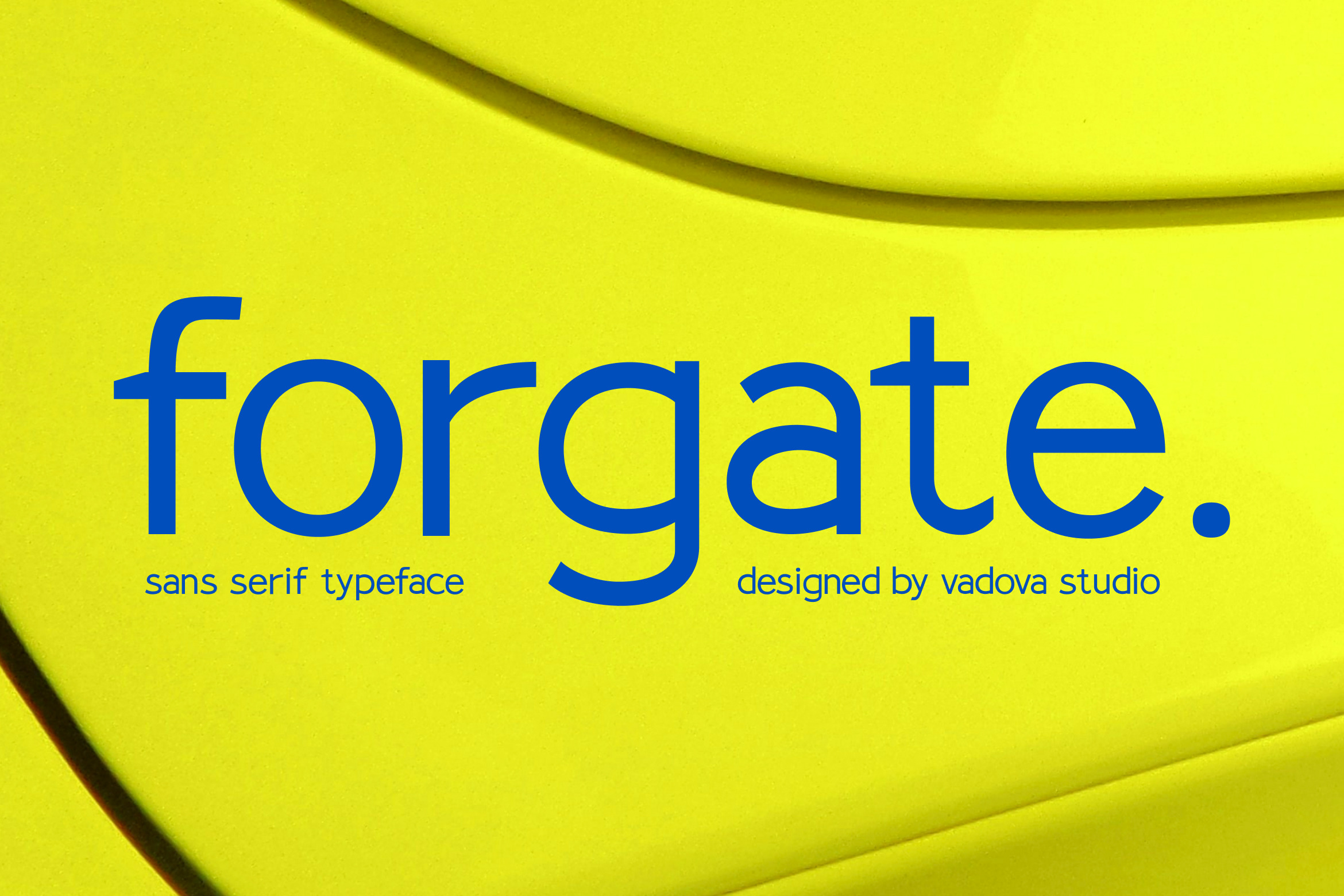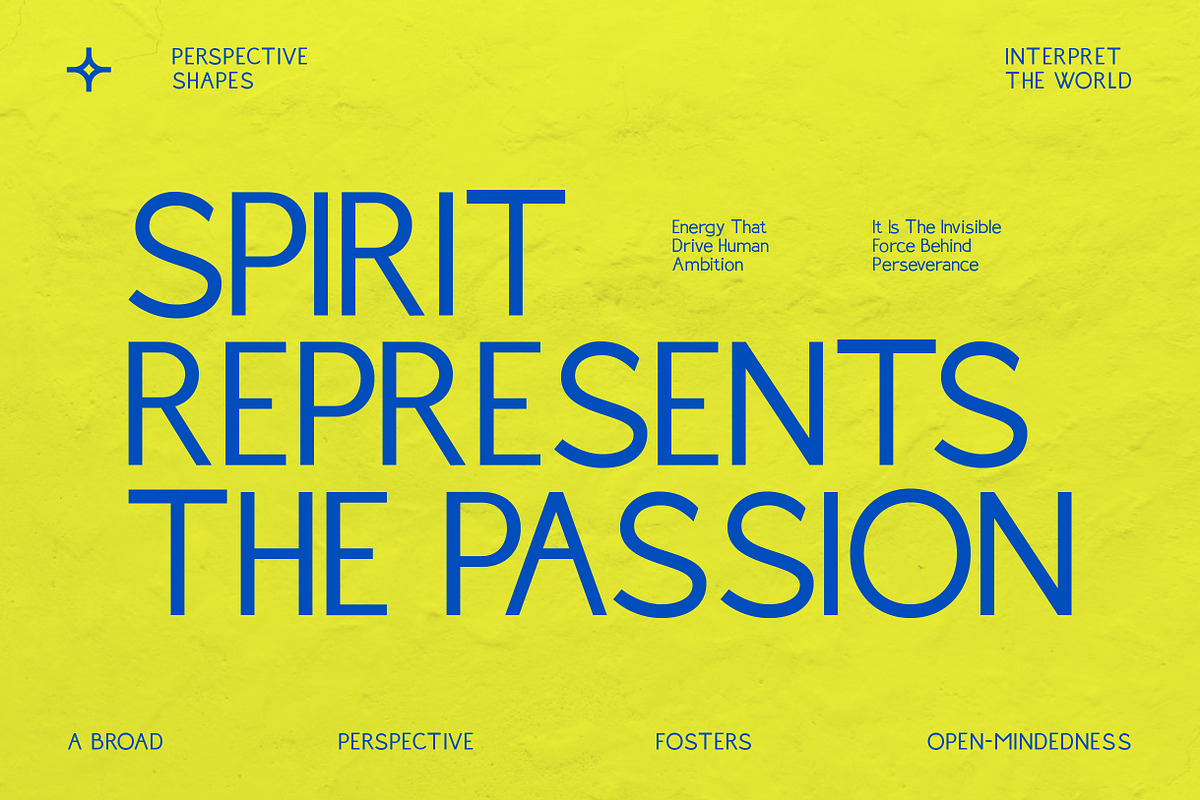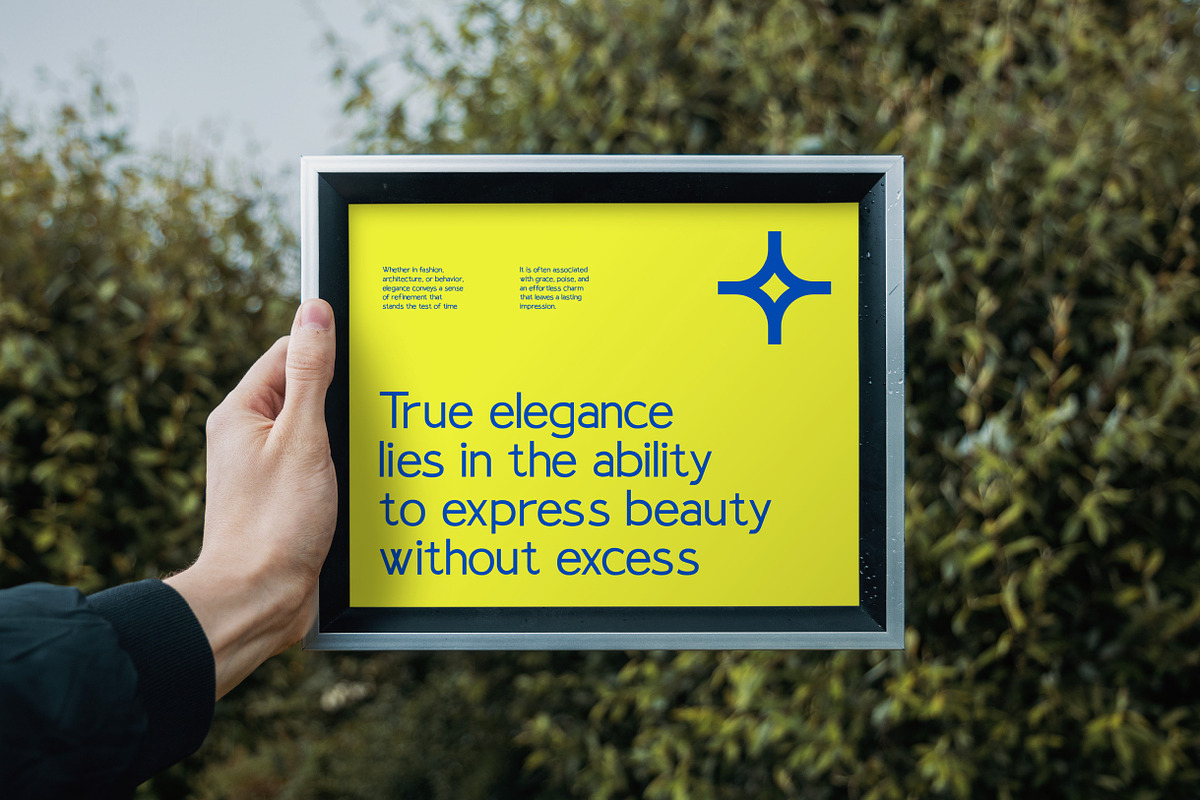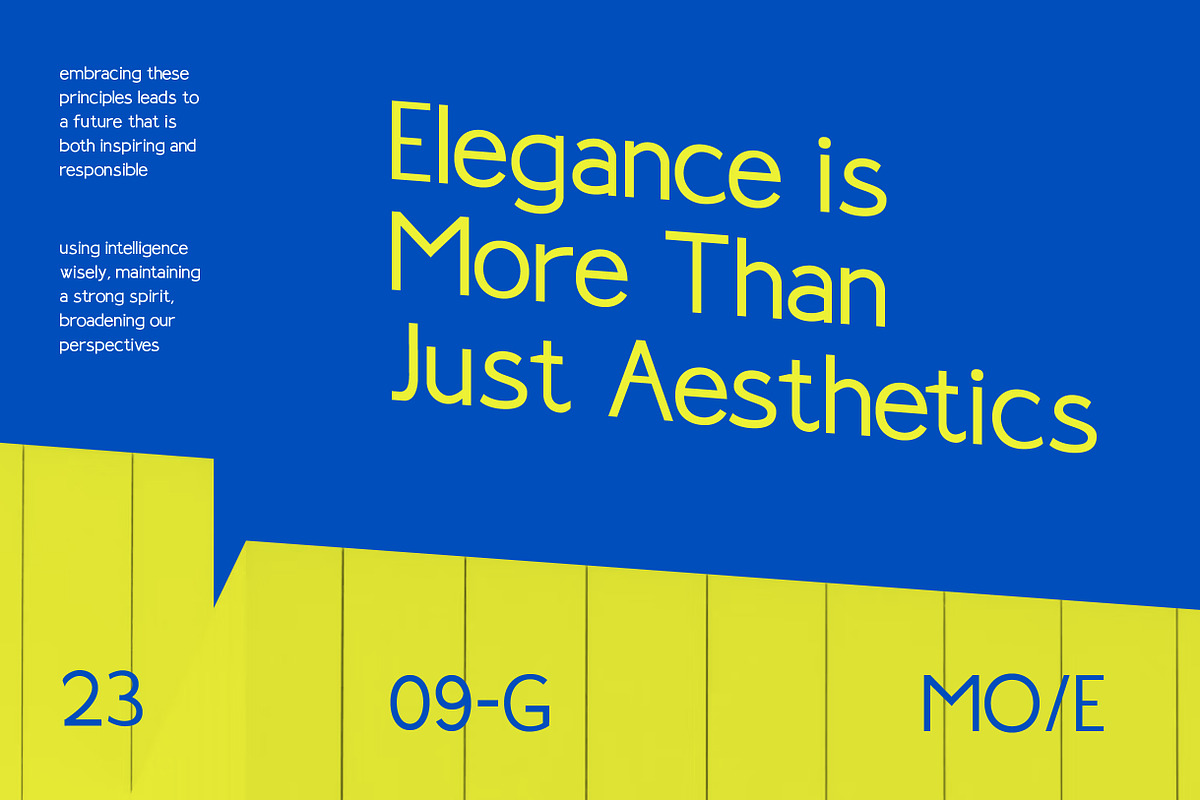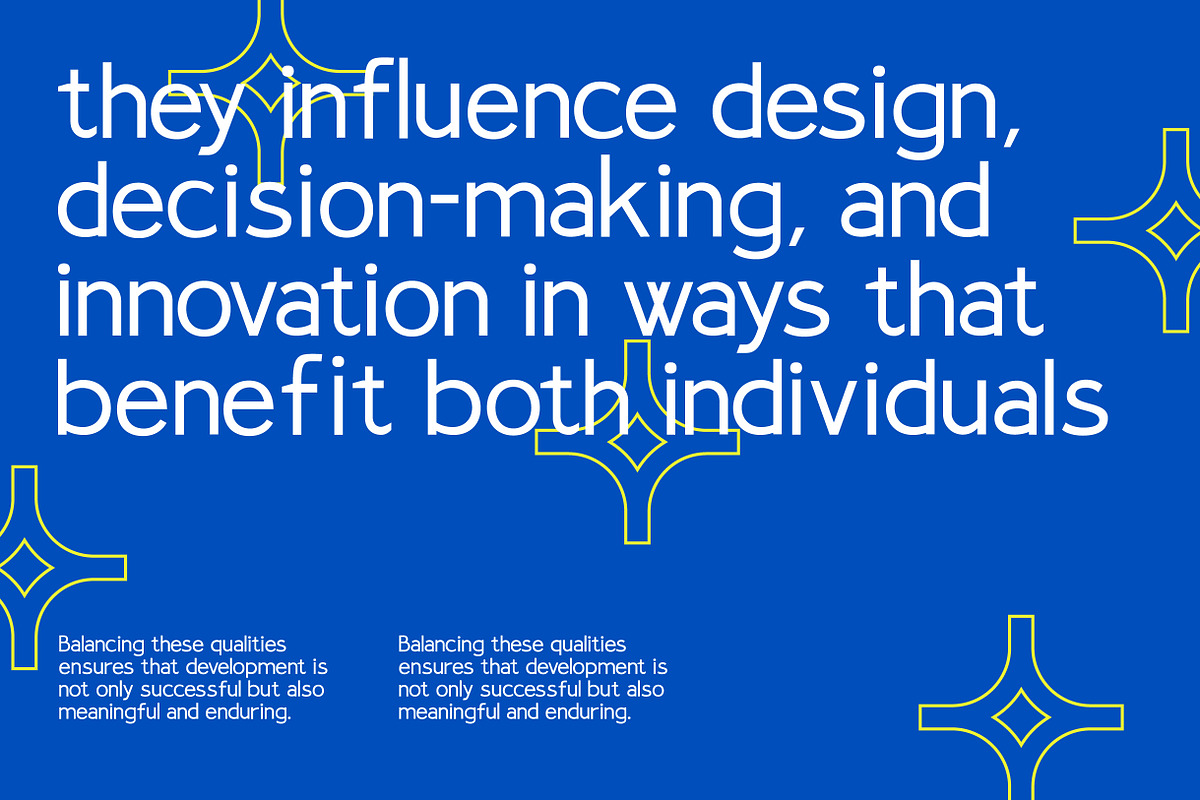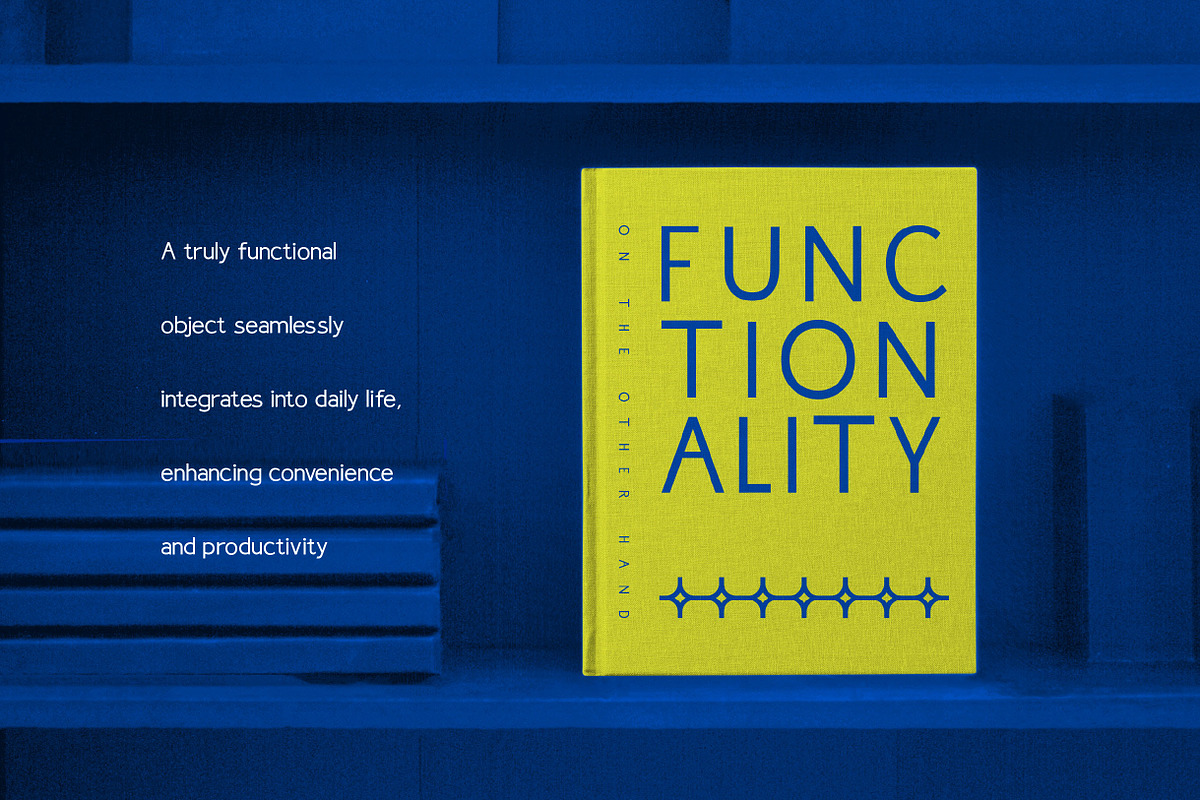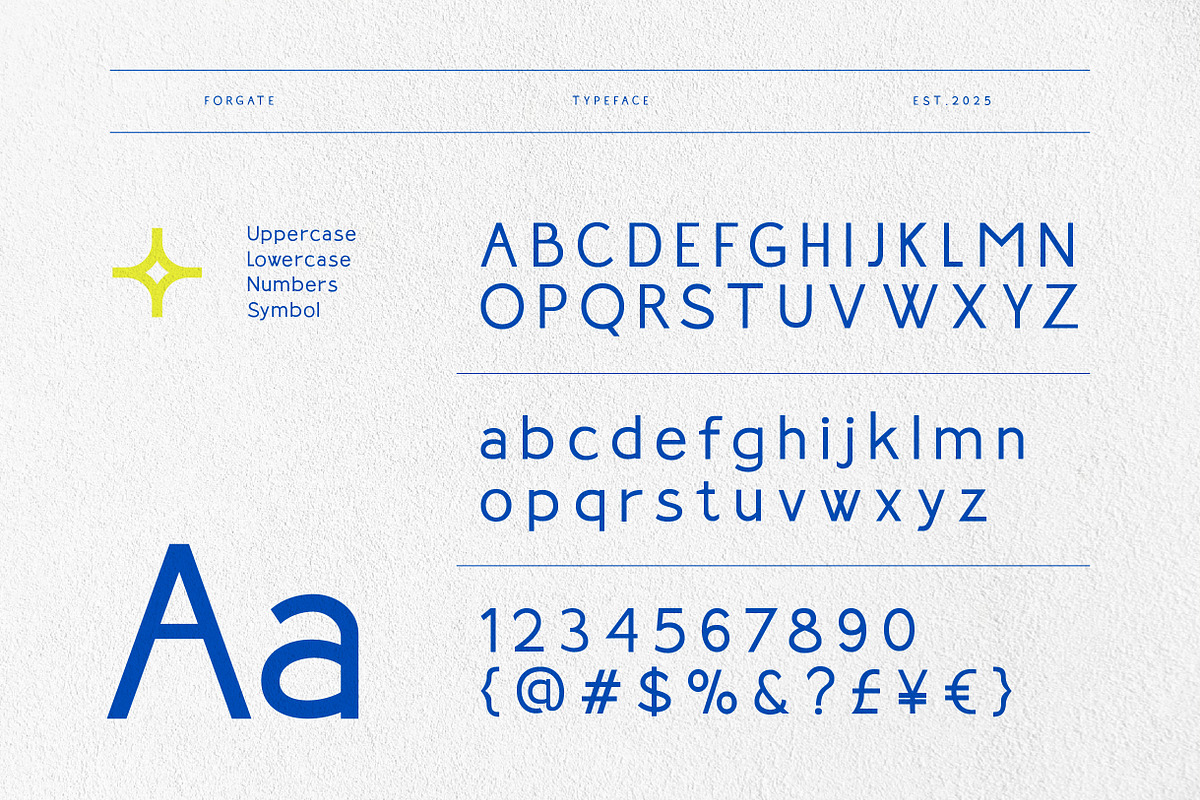
Forgate Sans Serif Typeface Font
Forgate is a clean and modern sans serif typeface crafted with precision, balance, and functional elegance in mind. Rooted in geometric design principles with a subtle infusion of humanist warmth, Forgate offers a visual language that is both approachable and highly professional. It’s built for designers who demand versatility, clarity, and contemporary aesthetics across a range of applications from corporate to creative, from print to digital.
Whether you're working on a cutting-edge tech brand, corporate identity system, clean packaging design, or sleek interface, Forgate is a typography solution that speaks with quiet confidence and modern sophistication. Its adaptable nature ensures it fits seamlessly into both bold and restrained design environments, empowering designers with a timeless yet forward-thinking typographic tool.
- Clean geometric sans serif structure with modern proportions
- Balanced humanist touches for a friendlier, less mechanical feel
- Uniform stroke widths for a minimalist, uncluttered appearance
- Well-crafted letterforms optimized for both screen and print environments
- Versatile weight and form make it ideal for branding
- Brand identity systems aiming for a modern visual
- UI/UX design templates for sleek dashboards, apps
- Product packaging, bottle labels, and cosmetic branding
- Digital marketing kits, pitch decks, and social media templates
- Lifestyle blogs, personal portfolios, or resume templates